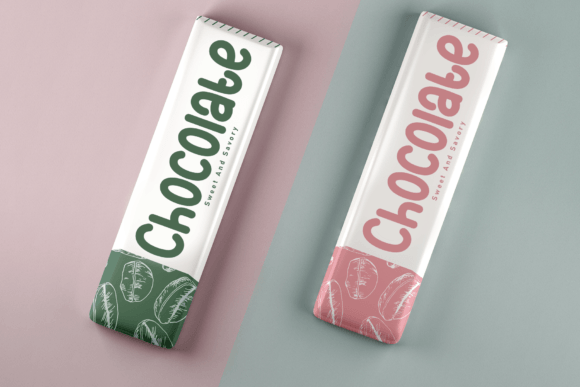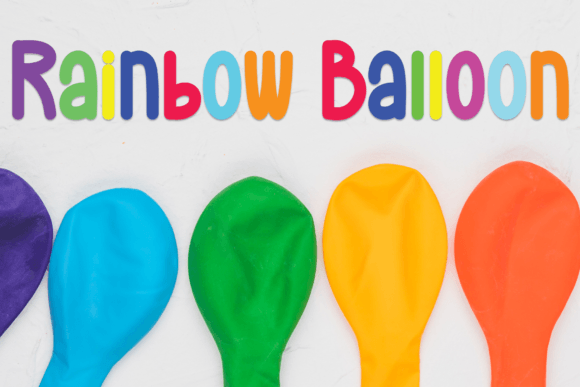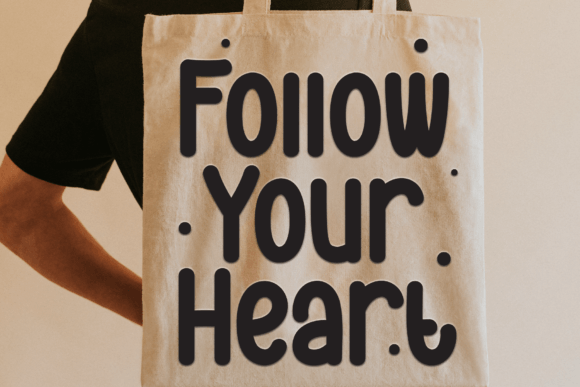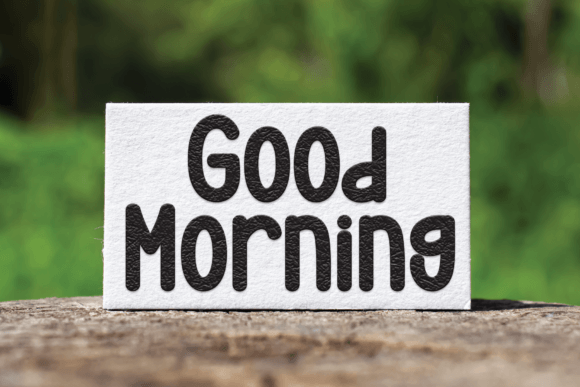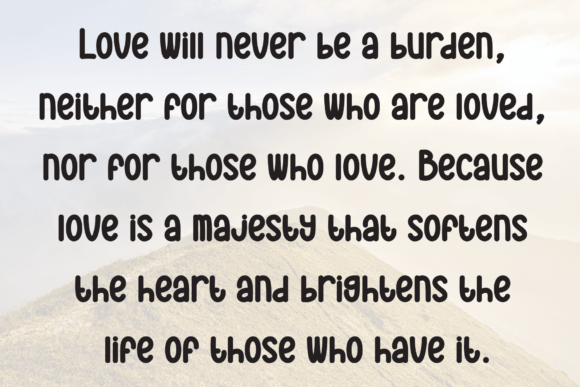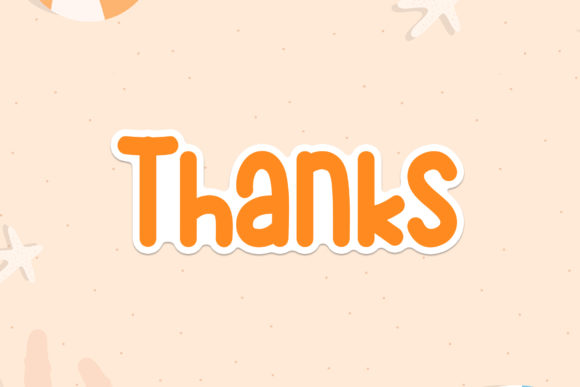
Introduction to Quicksands Font
Quicksands is a sweet and friendly handwritten display font.
Cute and fun, this font is ideal for writing wedding invitations, cards, or any other design that might need a fun touch .
Key Features of Quicksands Font